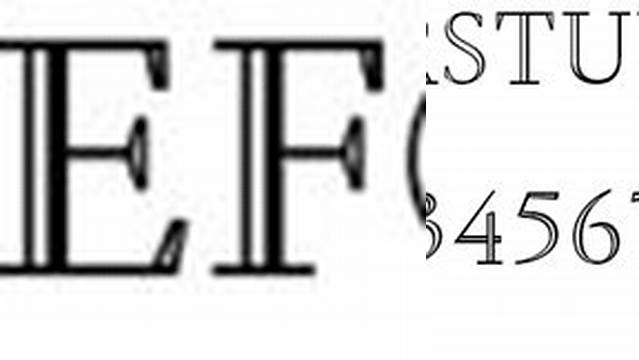
Hey guys! Ready to dive into the awesome world of typography? Today, we're going to explore the Steinburg Modern Inline Font β a super cool font that's perfect for adding a touch of modern flair to your projects. And the best part? You can snag it for free! This guide is your one-stop shop for everything you need to know about the Steinburg Modern Inline Font free download, from what makes it special to where you can find it and how to use it like a pro. Let's get started!
Steinburg Font: Unveiling the Modern Aesthetic
Alright, let's talk about what makes the Steinburg Modern Inline Font such a winner. This font is all about clean lines, sleek curves, and a sophisticated look. It's a perfect blend of modern design and readability, making it suitable for a wide range of projects. Think of it as the Swiss Army knife of fonts β versatile, stylish, and always ready to get the job done. When you're looking at the Steinburg Modern Inline Font, you're seeing a font that's been meticulously crafted to capture attention and convey a sense of contemporary elegance. Its unique inline design adds an extra layer of visual interest, setting your text apart from the crowd. This feature is especially effective for headlines, logos, and any design where you want to make a bold statement. The font's inherent modern aesthetic makes it ideal for branding, advertising, and web design, where a clean and current look is crucial. The Steinburg Modern Inline Font is not just a typeface; it's a statement. It's a declaration of your appreciation for quality design and a commitment to staying ahead of the curve. Its adaptability allows it to mesh well with various design styles, from minimalist to more elaborate layouts. The overall effect is a polished, professional appearance that speaks volumes about your attention to detail. Choosing this font shows that you value both form and function, providing a visual treat while keeping readability intact. The modern appeal also ensures that your design remains relevant and engaging over time. It's a fantastic way to add a layer of sophistication and visual appeal without having to spend a ton of time on your design. Its balance of modern design and practicality makes it a top choice for designers aiming to create projects that are both visually appealing and highly functional.
Diving into the Design Details
Now, let's get up close and personal with the design elements of the Steinburg Modern Inline Font. The font typically showcases a consistent line weight, creating a harmonious visual experience. The carefully crafted curves and angles offer a balanced aesthetic, neither too harsh nor too soft. The inline effect, a key characteristic, works by creating a contrasting space within the letterforms, which draws the eye and gives the text a unique look. This design choice boosts the font's visibility, especially in headlines or short text blocks. It's an excellent way to capture attention and create a strong first impression. Beyond aesthetics, the font is typically designed with readability in mind. Every character is meticulously shaped to ensure clarity, even at various sizes. The spacing between letters and words is considered carefully to enhance reading flow. This makes it suitable for both display and body text, though it truly shines in larger sizes. Its adaptable character set allows for various typographic expressions, giving designers ample freedom to tailor the look of their text. Consider it a design tool that helps you communicate your message effectively and make your work memorable. This focus on detail elevates the Steinburg Modern Inline Font from just another font to a fundamental design element that enhances your overall message. The thoughtfulness put into its development guarantees that it's not only appealing but also functional. The meticulous design ensures legibility and visual appeal, making it a versatile option for various creative endeavors. Itβs built to make your design pop without sacrificing readability. The designers put so much detail to make sure your text looks both awesome and easy to read.